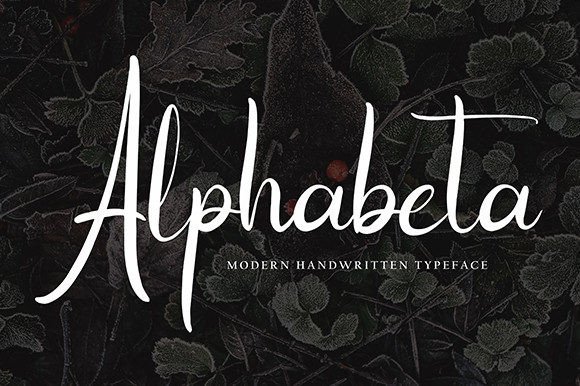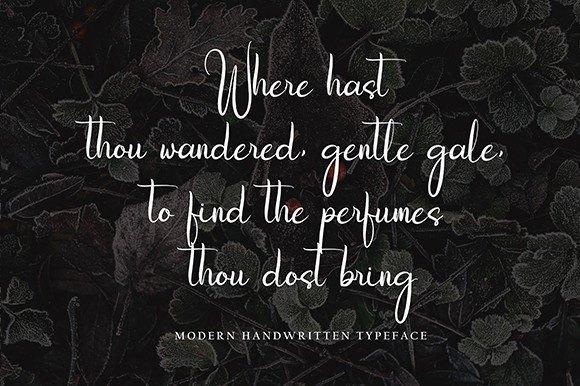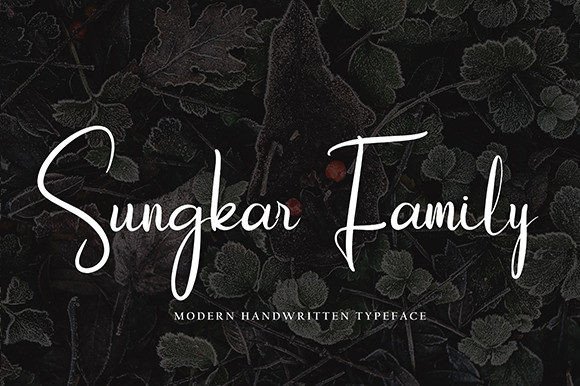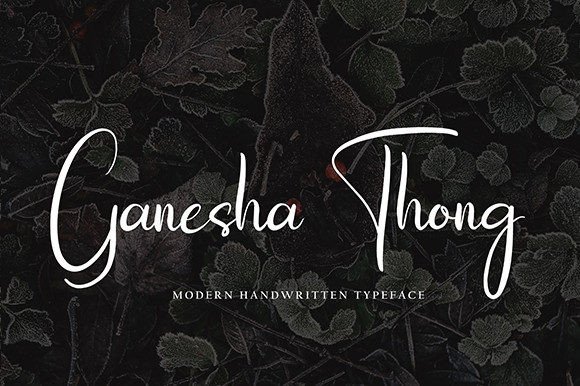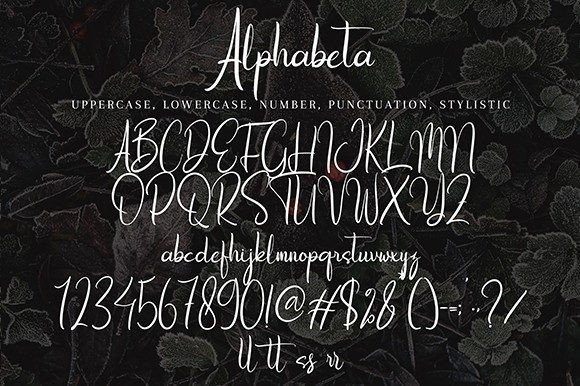
Alphabeta
About Alphabeta
Alphabeta with new style, this font will perfect for many different project ex: quotes, logo, blog header, poster, banding, letter, invitation, stationery, etc…